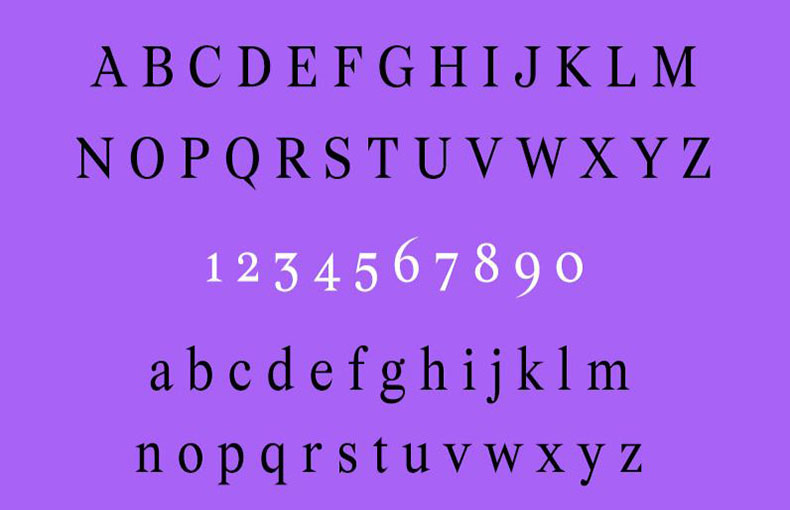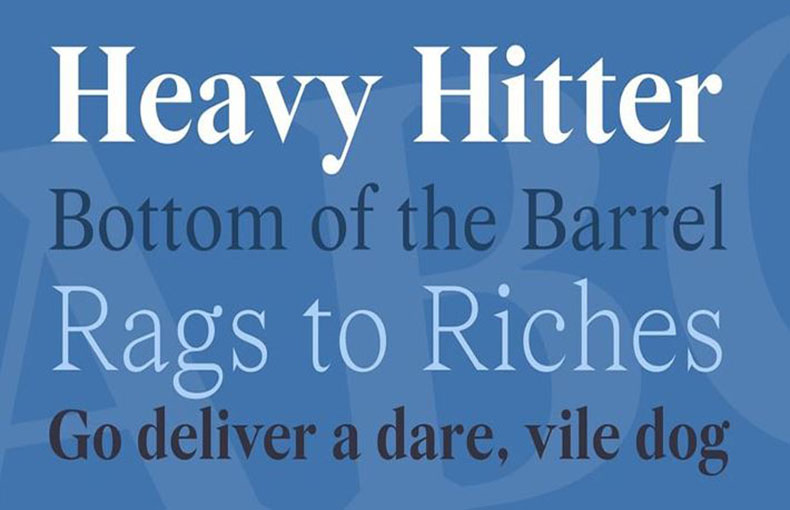
Wremena Font is a serif typeface designed by Roman Gornitsky and published through the Russian foundry The Temporary State in 2017.
This font family comes in three weights including Regular, Bold, and Light. It includes 528 glyphs and 1521 binary stored kerning pairs.
The letters are carefully crafted, striking the perfect balance between simplicity and character. Ideal for book covers, paragraphs, and headings styles.
This typeface undoubtedly enhances the overall impact and visual appeal of your project, be it personal or business.
The typeface is the ideal option for designers looking for a font that will stand the test of time because of its delicate curves and mild serifs, which simultaneously make it classic and modern.
You may use it for book covers, social media posters, headers, social media flyers, banners, titles, gaming cards, birthday cards, content writing, paragraphs, novel covers, product design, and education thanks to its contemporary appearance. can employ headings, elements, and more
In conclusion, this font is a stunning, well-designed typeface that will stand out in any project.
This display font supports 98 different languages.
What is Wremena Font?
A distinctive typeface made for simple reading is Wremena Font. Readability is improved by the distinct characters and even spacing.
Where can I use Wremena Font?
It can be used in a variety of contexts, including presentations, websites, and publications. Anywhere you want to read clearly and comfortably.